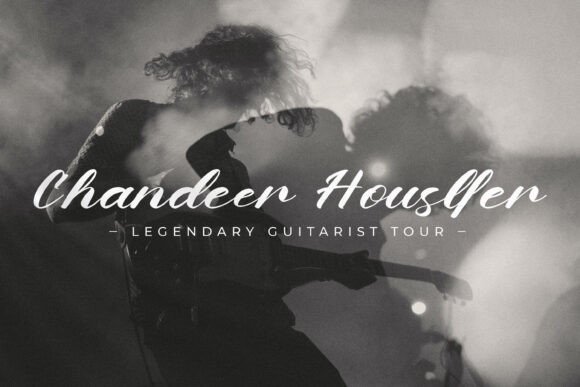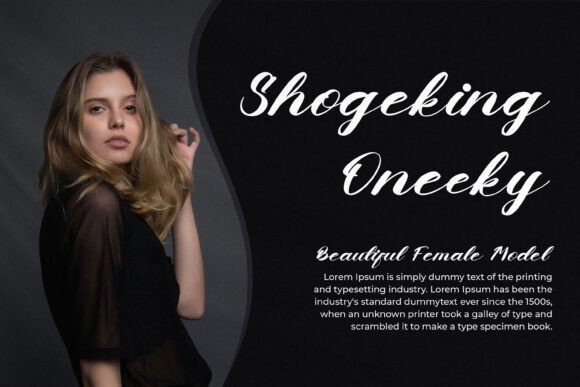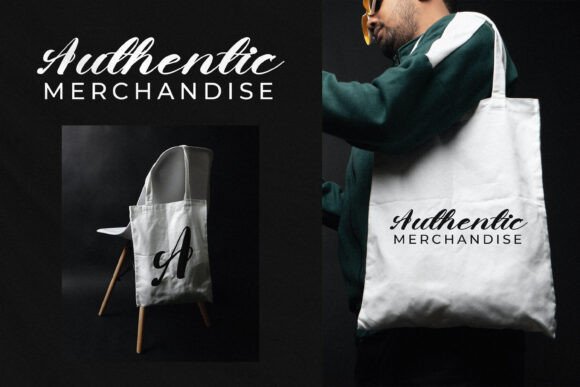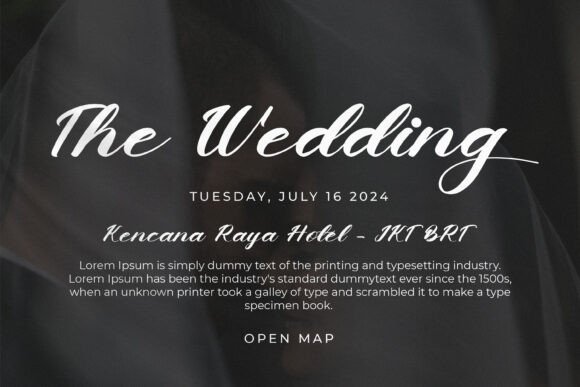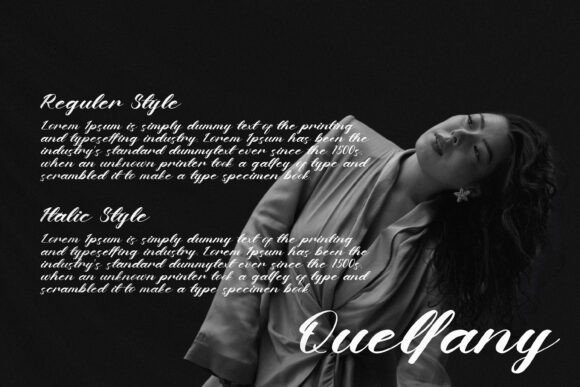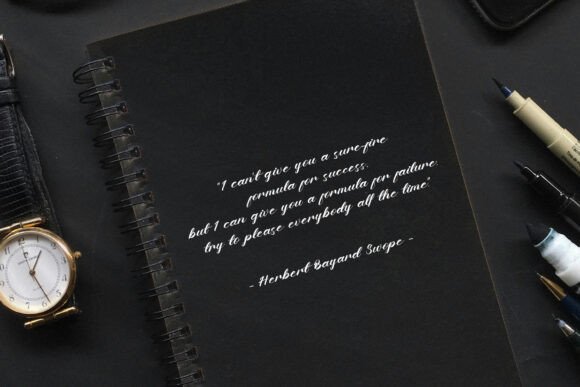
Discover the Timeless Charm of Chandeer Holestter Font
As a designer, have you ever found yourself stuck in a creative rut, searching for the perfect font to bring your vision to life? I know I have. And then, like a breath of fresh air, I stumbled upon the Chandeer Holestter Font. Its smooth curves and flowing strokes immediately caught my eye, and I knew I had to learn more.
This elegant beauty script font is a game-changer for designers looking to add a touch of sophistication to their projects. Whether you’re creating stunning logos, wedding invitations, or branding materials, Chandeer Holestter Font is the perfect choice. Its timeless charm is sure to make your designs stand out, and its versatility makes it a valuable addition to any designer’s toolkit.
Chandeer Holestter Font Key Features
- Font Family: Chandeer Holestter Font is a unique, custom-designed font family.
- Character Count: The font family includes a wide range of characters, including uppercase and lowercase letters, numbers, and punctuation marks.
- Unique Characteristics: Chandeer Holestter Font features a distinctive, hand-drawn style with intricate details and flourishes, making it perfect for creative and artistic projects.
Designer Review: Chandeer Holestter Font
Overall, I was quite excited to dive into the Chandeer Holestter Font and see what it had to offer. As a designer, I’m always on the lookout for unique and eye-catching fonts to add some flair to my projects. Here’s my honest review:
- ✨ The font has a clear, modern aesthetic that’s perfect for contemporary designs.
- ✨ The weight and size options are well-balanced, making it easy to use in a variety of contexts.
- ✨ The font is highly customizable, allowing users to fine-tune the look to suit their specific needs.
- ⚠️ The font may be a bit too bold for certain applications, such as body text or small headings.
- ⚠️ Some characters may not render correctly in certain font sizes or on specific devices.
- ⚠️ The font family could benefit from additional weights and styles to increase its versatility.
Overall, I’d say the Chandeer Holestter Font is a solid choice for designers looking for a modern, attention-grabbing font. While it may have some limitations, its strengths make it a valuable addition to any design arsenal. With some additional development, this font could truly shine.
For a unique look, pair the Chandeer Holestter Font with bold fonts for headings and regular fonts for body text.
For a professional look, use the Chandeer Holestter Font for headings and pair it with serif fonts for body text.
For a modern look, use the Chandeer Holestter Font for headings and pair it with sans-serif fonts for body text.
The Chandeer Holestter Font is ideal for:
1. Modern and minimalist designs.
2. Digital products and apps.
3. Branding and logo design.
For the best results, use the Chandeer Holestter Font in conjunction with bold fonts for headings and regular fonts
Alternatives to “Chandeer Holestter Font” for Designers
Playfair Display is a luxurious serif font that is perfect for creating elegant and sophisticated designs. It is ideal for use in titles, headings, and other prominent text elements where a touch of sophistication is desired.
Compared to Chandeer Holestter Font, Playfair Display has a more refined and elegant feel, making it suitable for high-end designs such as luxury brands, fashion, and fine art.
Great Vibes is a modern script font that is perfect for creating a friendly and approachable atmosphere. It is ideal for use in titles, headings, and other text elements where a touch of whimsy and personality is desired.